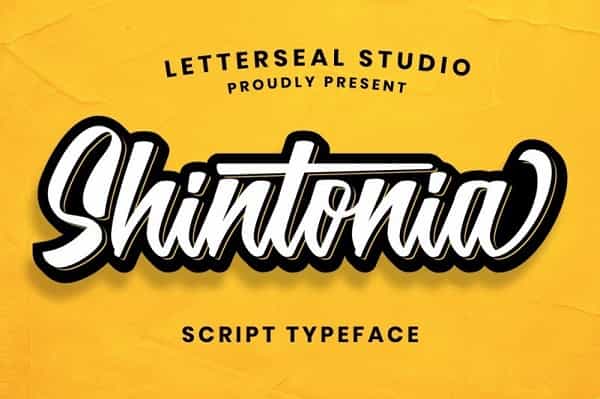
Discover Shintonia Bold Script Font, part of the Calligraphy Script collection—a versatile and unique font perfect for adding a personal touch to your projects. Download it for free and enjoy crafting designs with style, from invitations to social media posts. This font is available exclusively for personal use, giving you the freedom to create without limits. Unlock your creativity with Shintonia Bold Script Font today!
Shintonia Font is a script font that has style and has that sort of dynamic look to it. Every letter is produced to complement the look of your crafts. Shintonia is ideal for any applications such as watermarks, logos, business cards, quotes, album covers, invitations, stationery and any other needing that special touch.